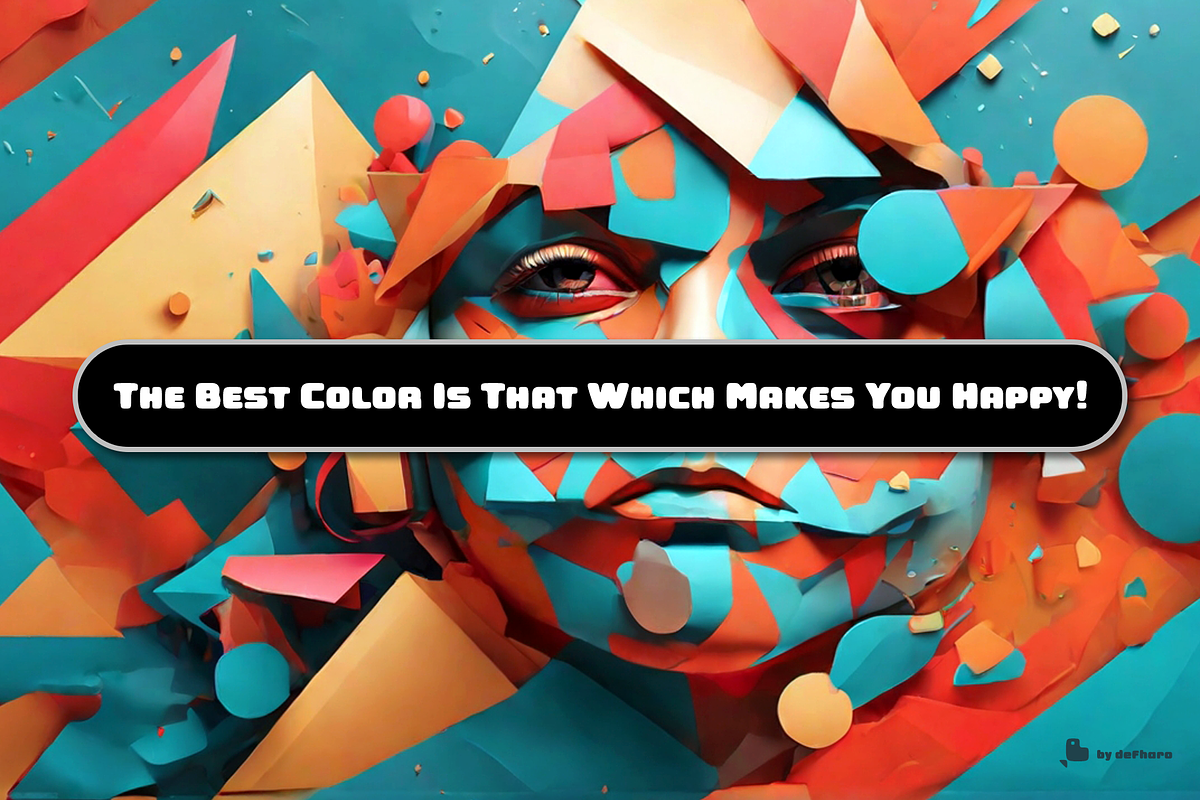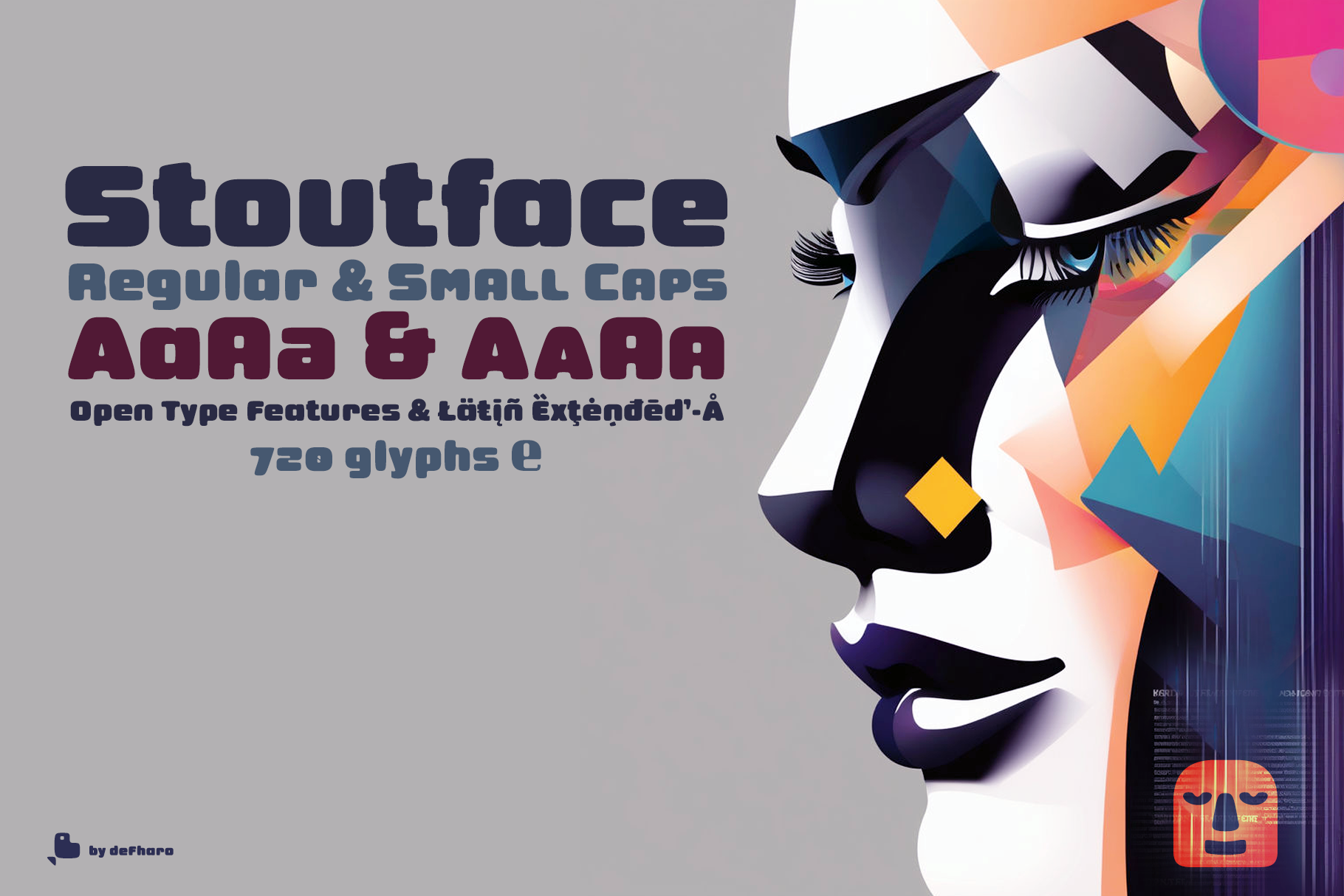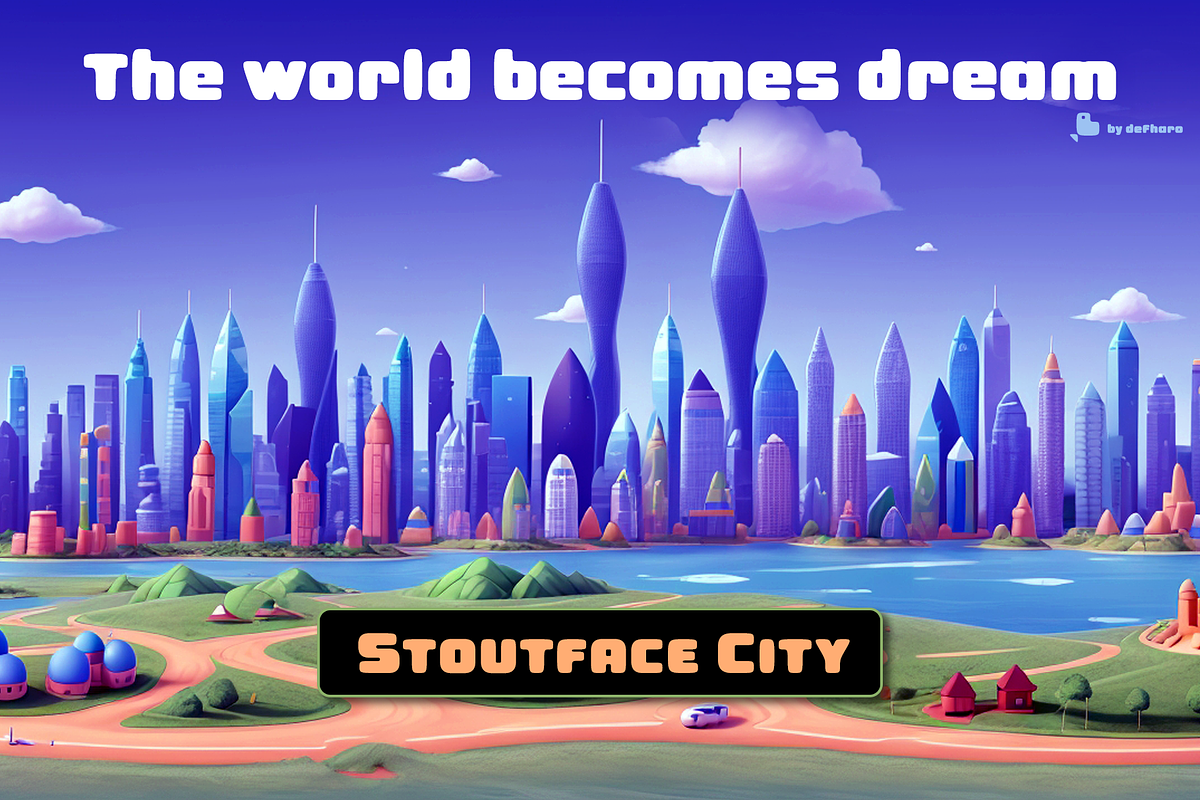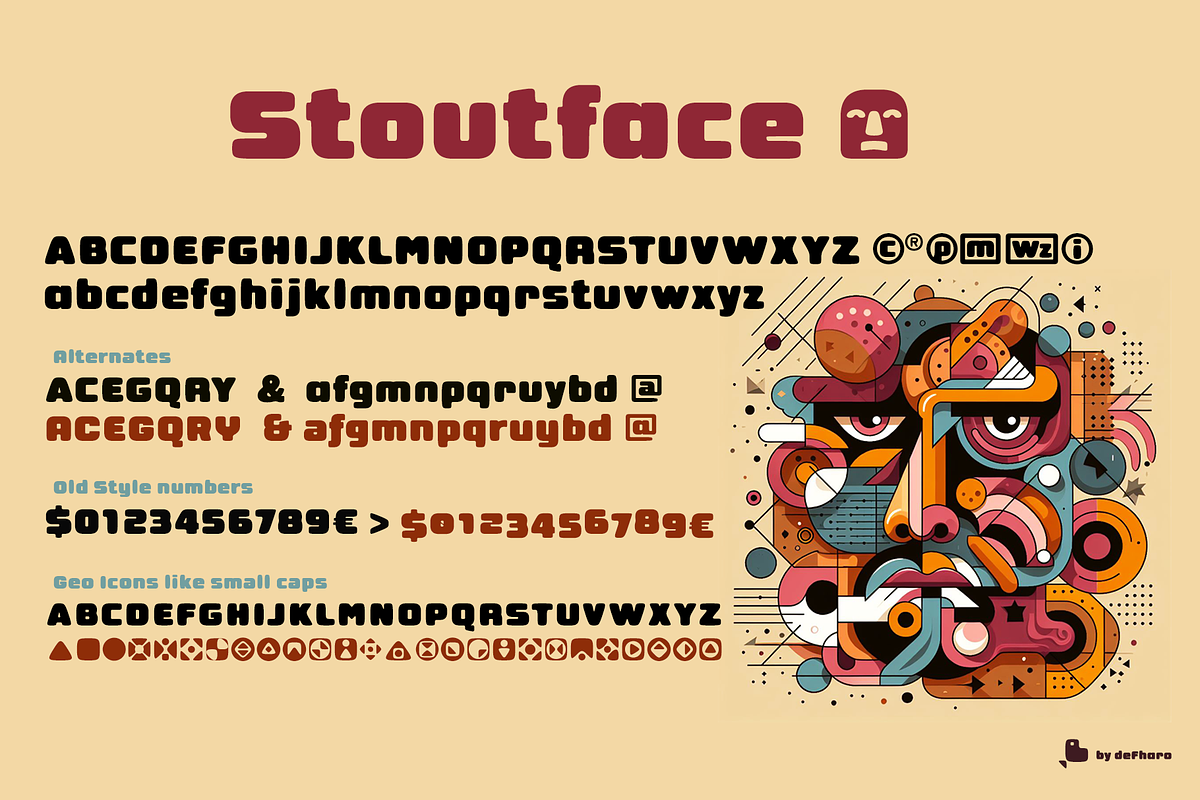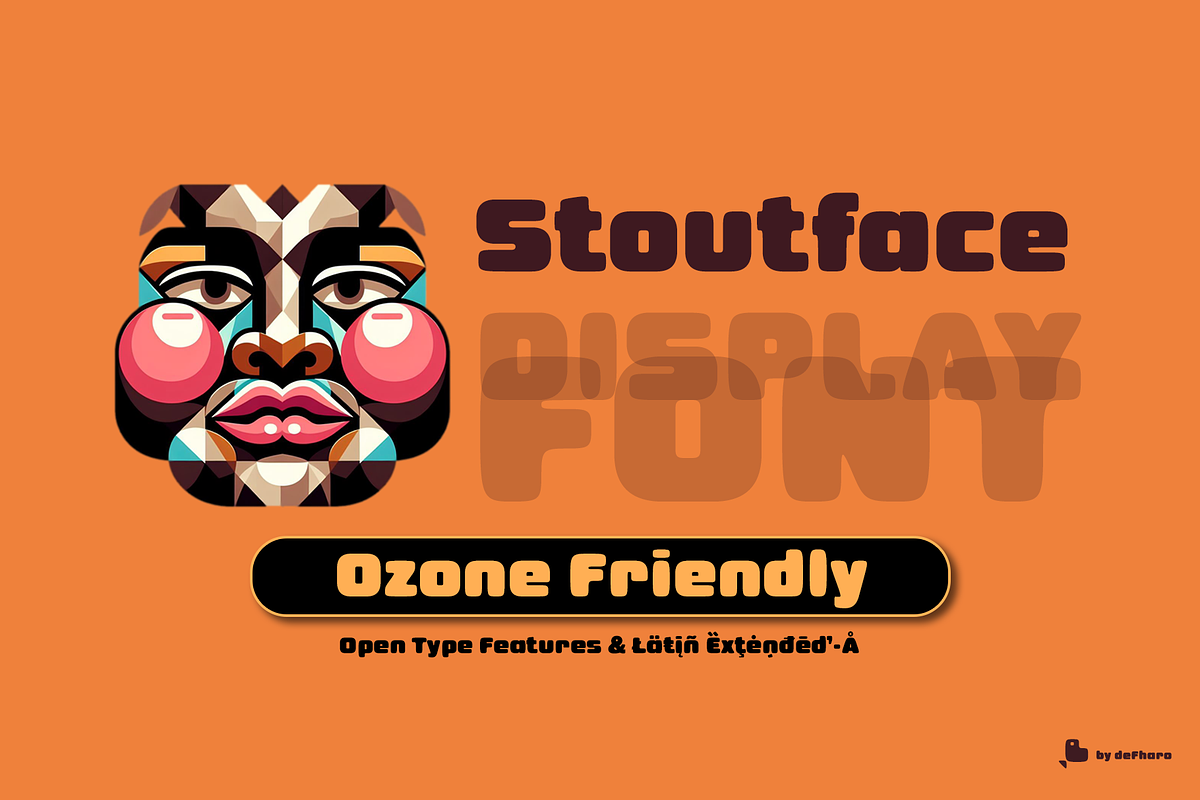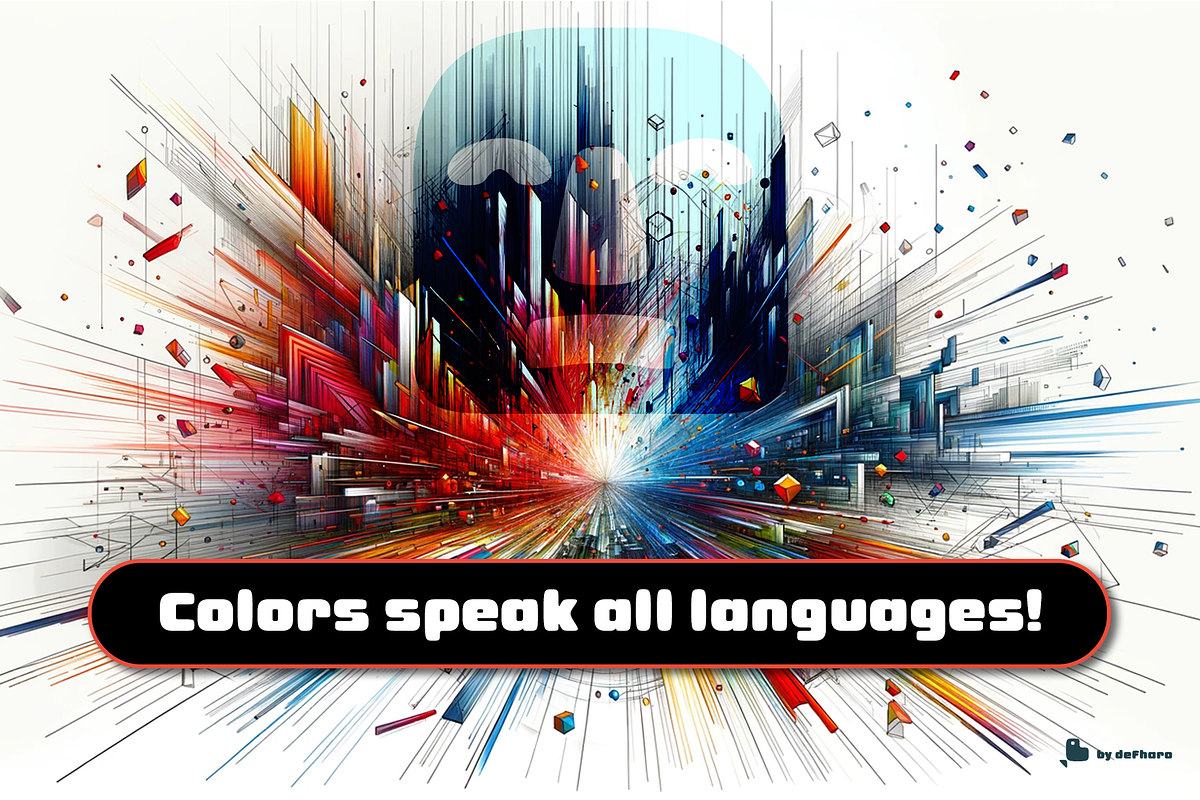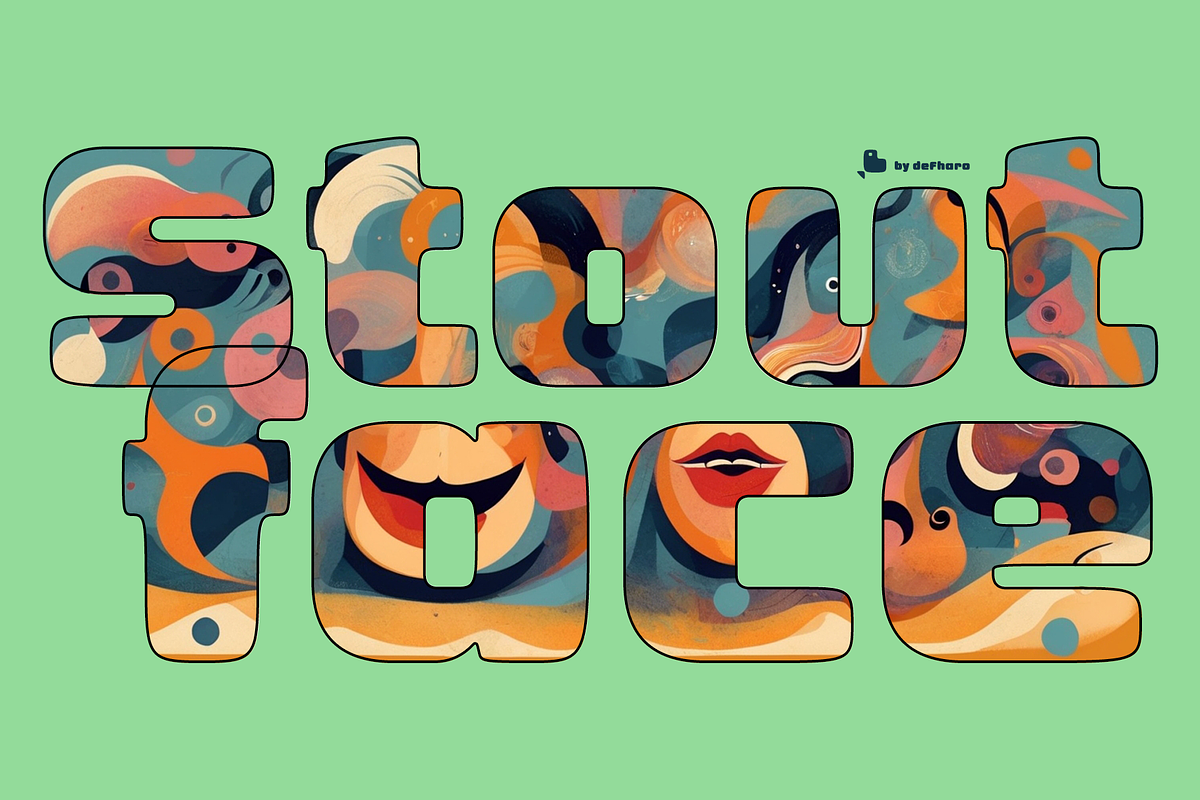
Stoutface, 02 display fonts
Stoutface Regular and Small Caps are two bold typefaces, two sans serifs that combine the best of modern design and the feel of times gone by. Its thick, somewhat unfocused style gives text a rounded, worn appearance, ideal for capturing attention.
Its rounded shapes, the result of exceptional thickness and subtle wear, are perfect for large titles and any text that needs to stand out, thanks to its precise adjustment of spacing and shapes that guarantee clarity and ease of reading. Additionally, they offer many customization options, including variants of letters, numbers and currency symbols.
- Stoutface fonts includes the symbol of Bitcoin and currency symbols.
- OpenType Features:Additional languages, All Alternates, Capital Spacing, Contextual Alternates, Denominators, Discretionary Ligatures, Fractions, Historical Forms, Inferiors, Kerning, Localized Forms, Numerators, Oldstyle Figures, Ordinals, Scientific Inferiors, Slashed Zero, Small Capitals, Small Capitals From Capitals, Standard Ligatures, Subscript, Superior letters, Superiors, Superscript.